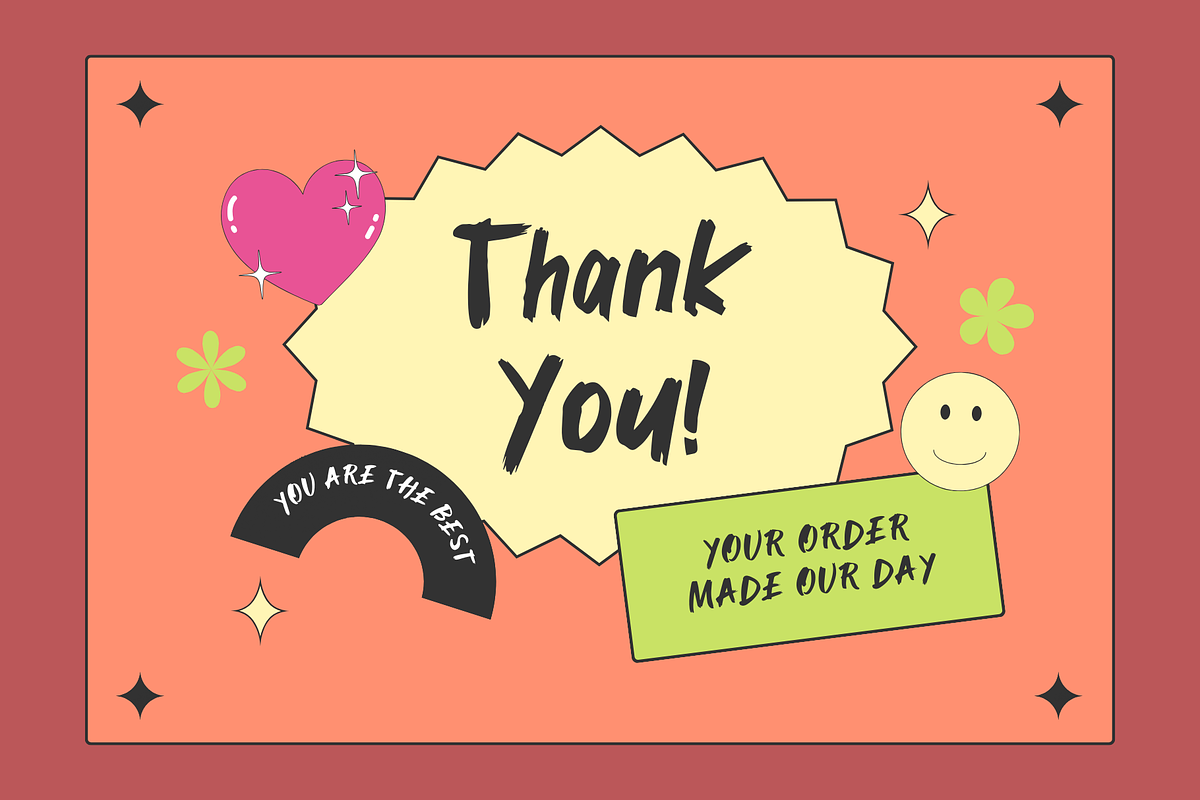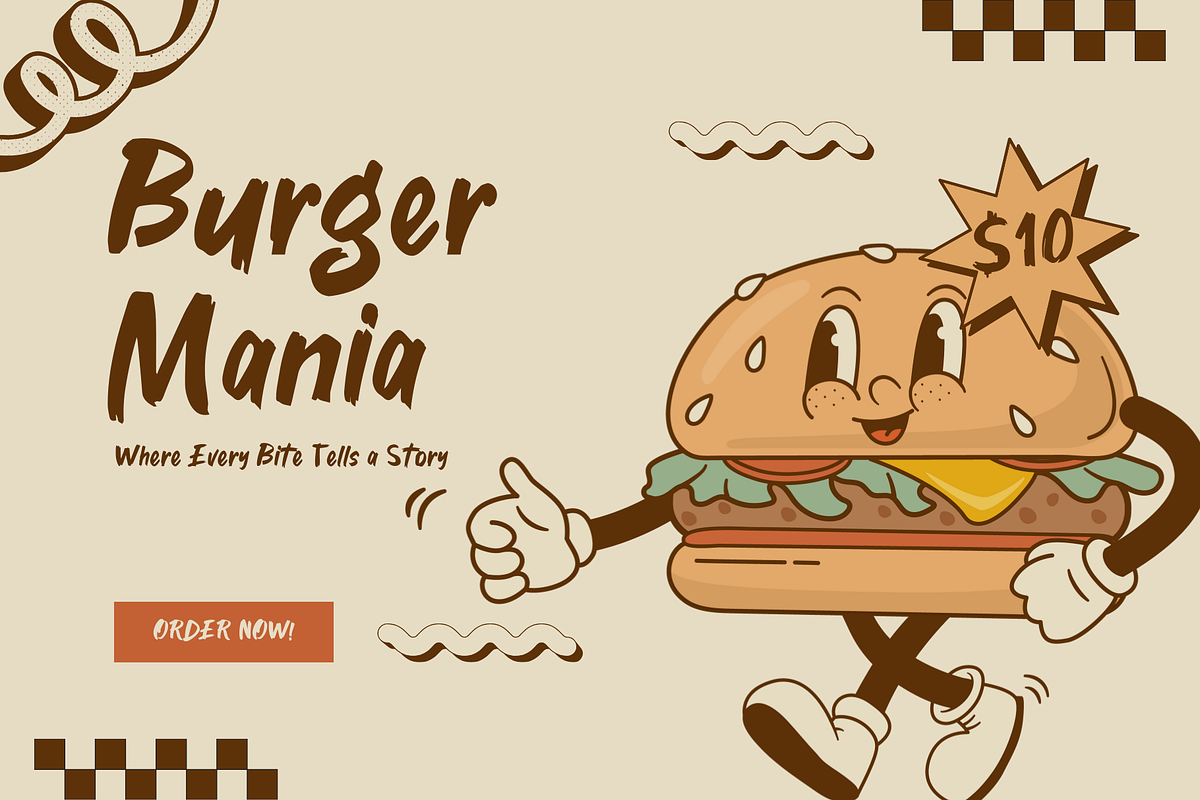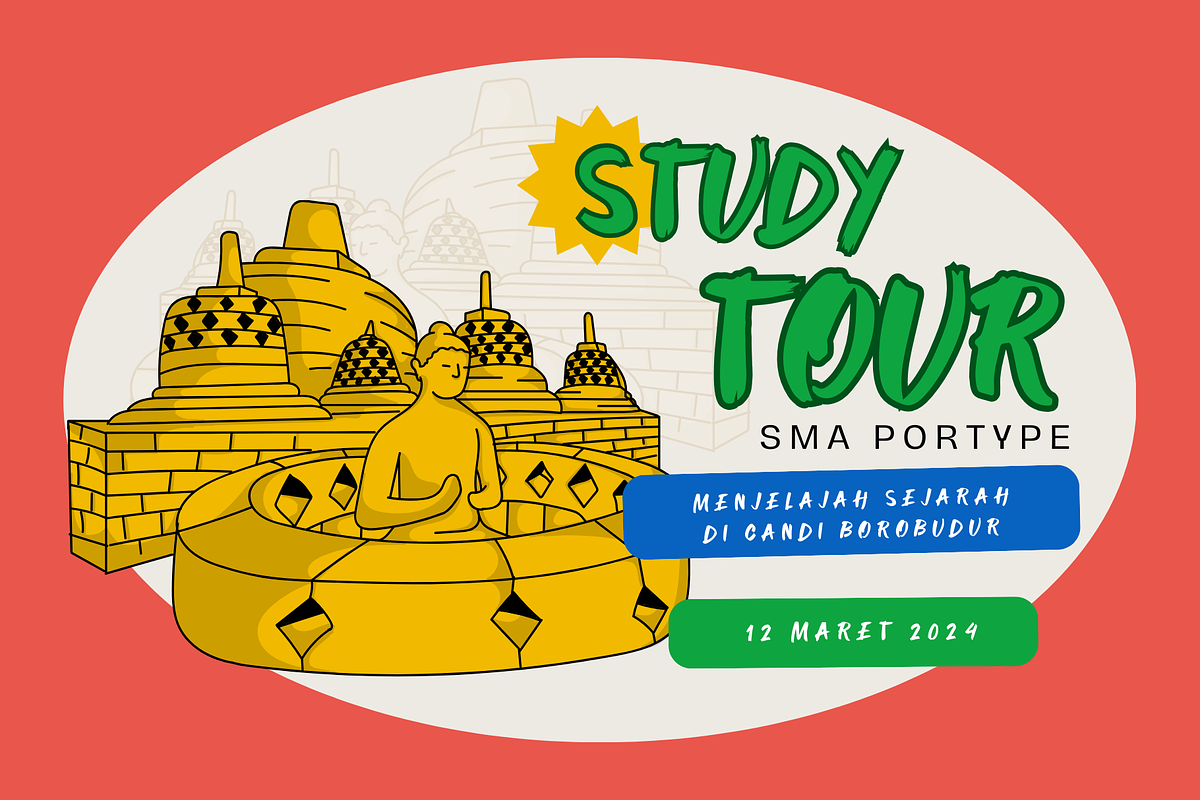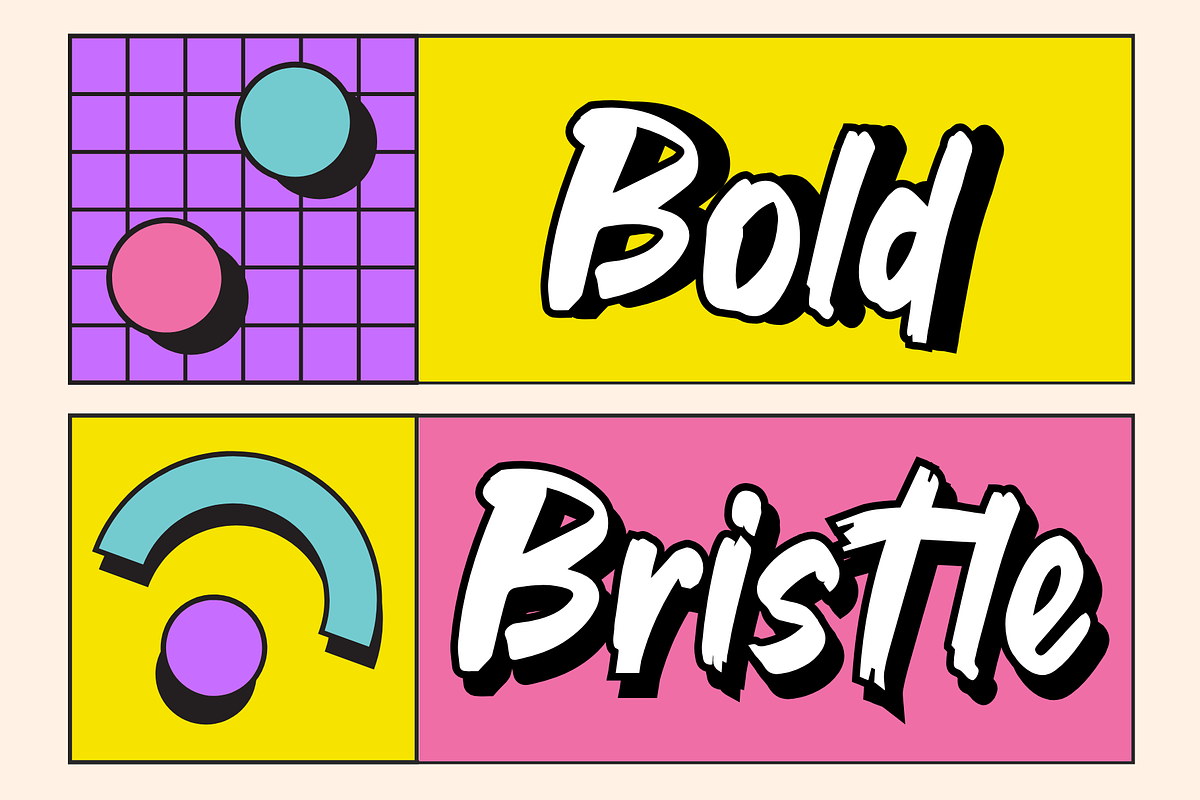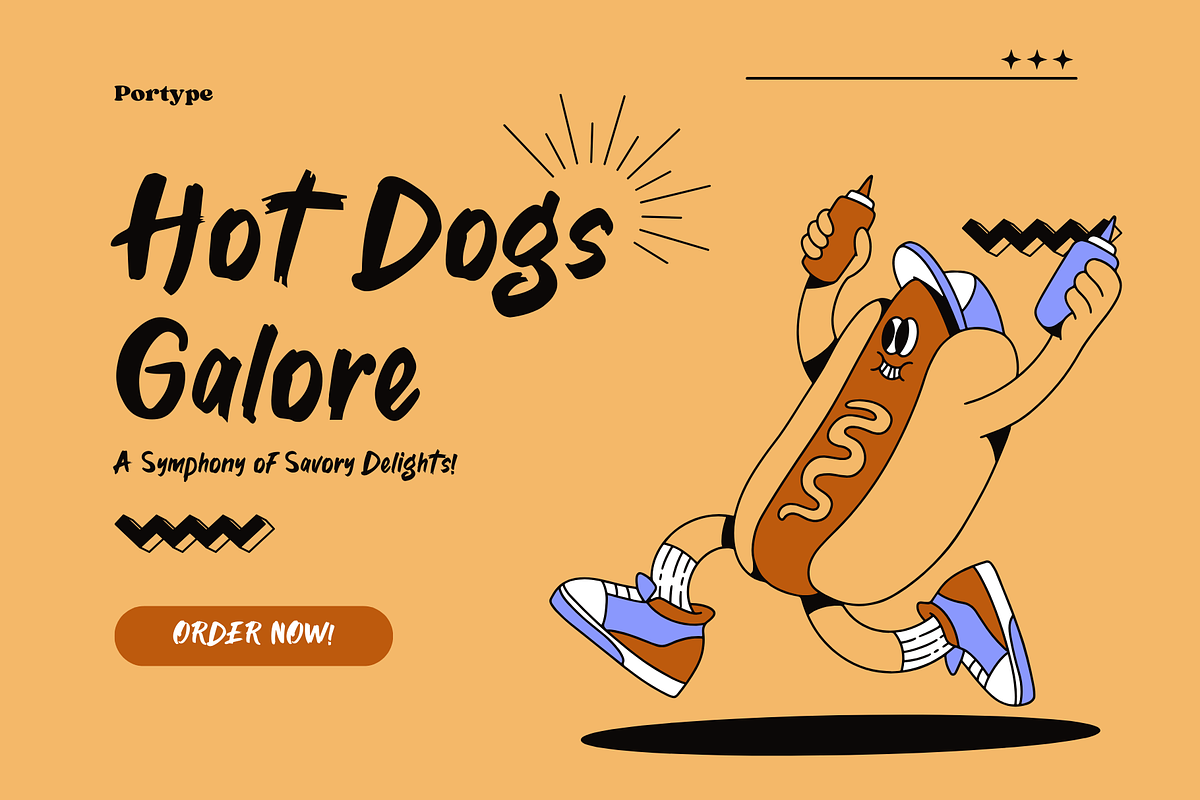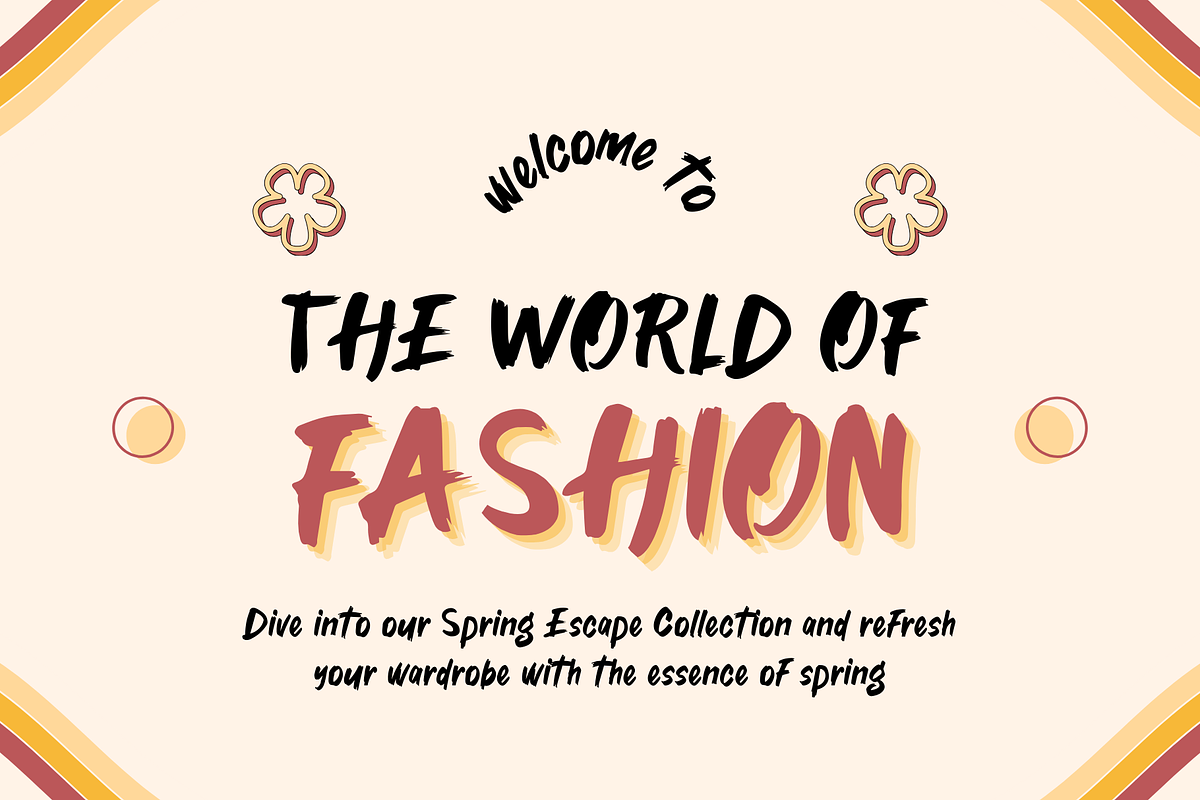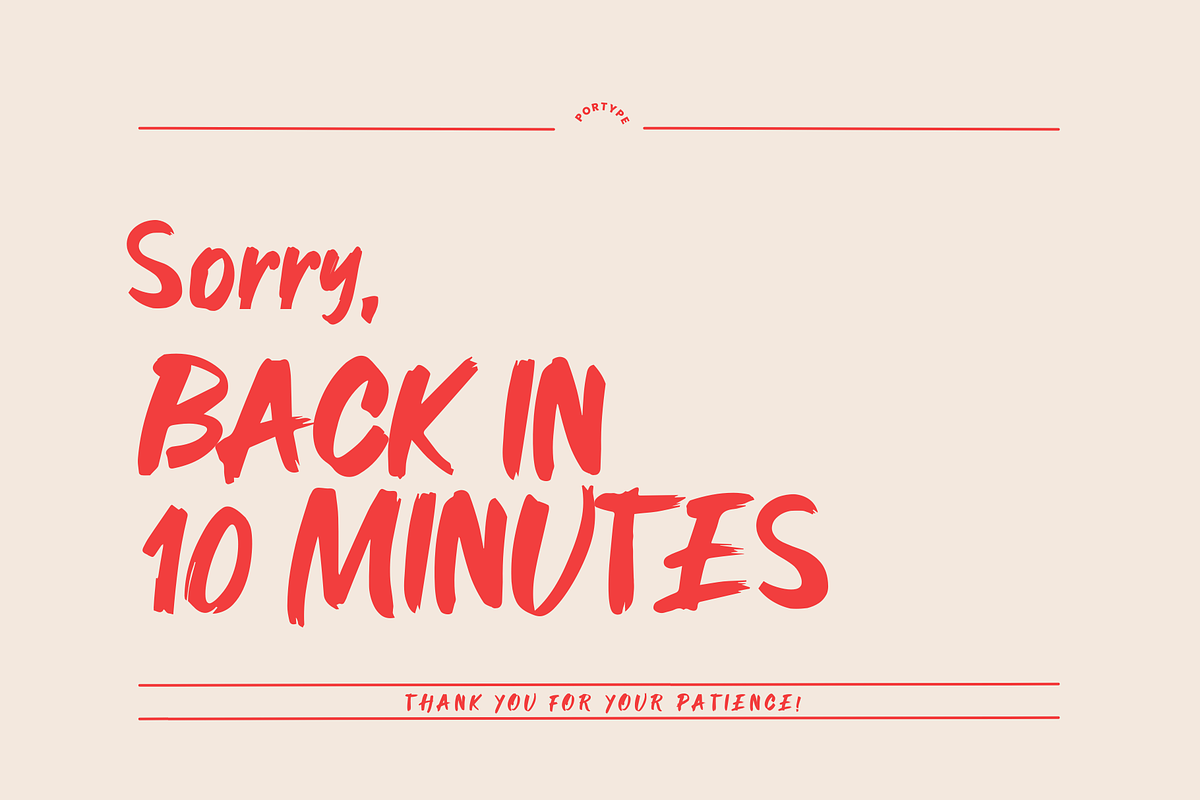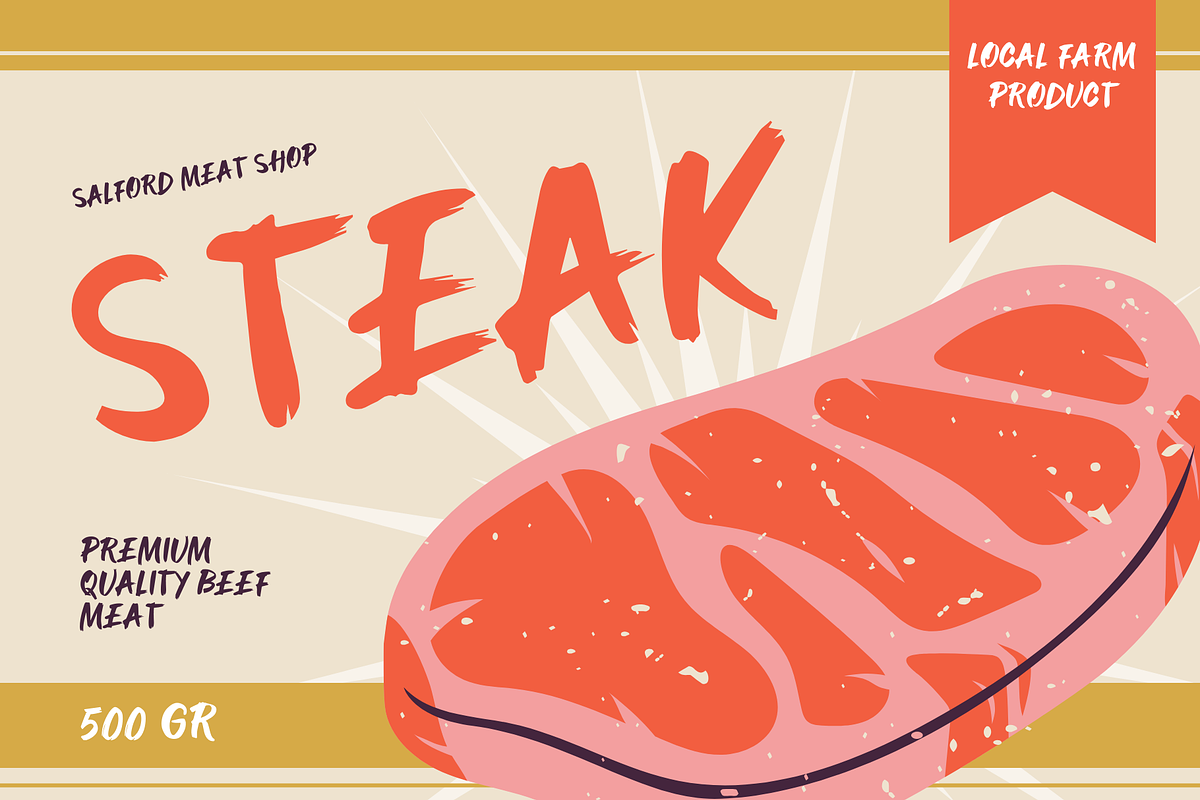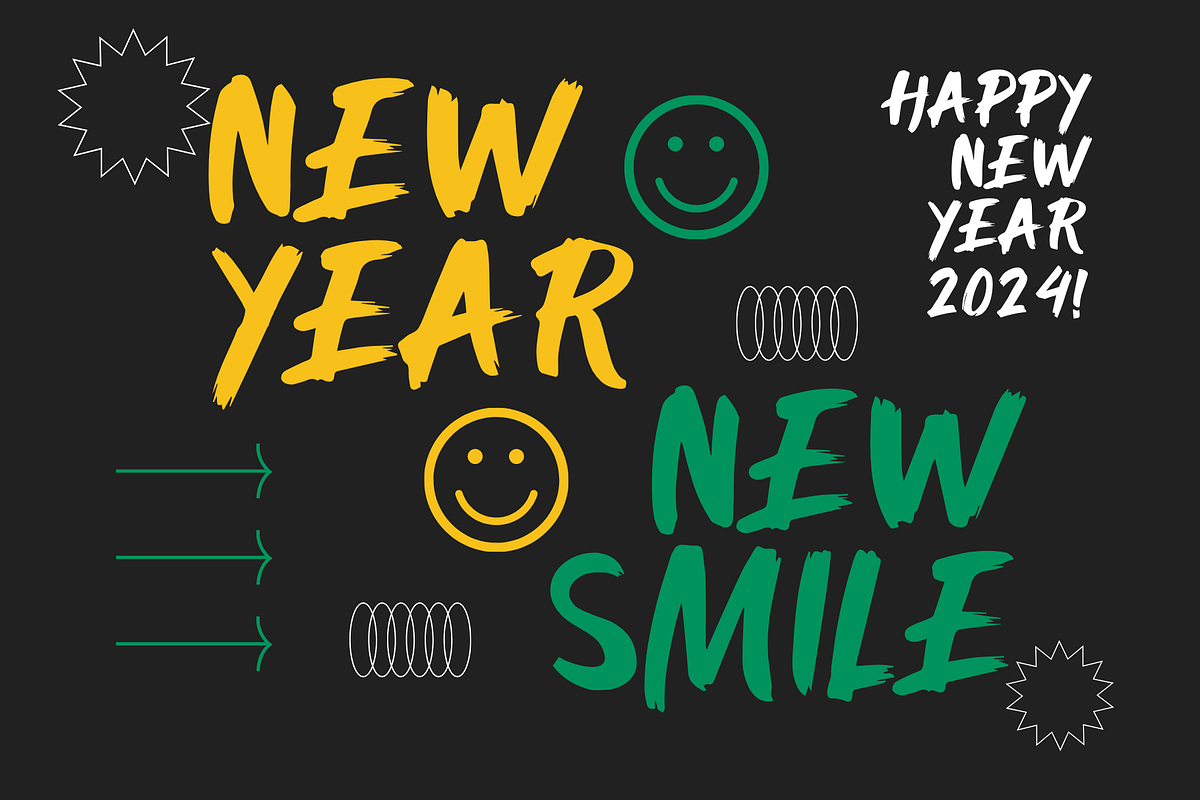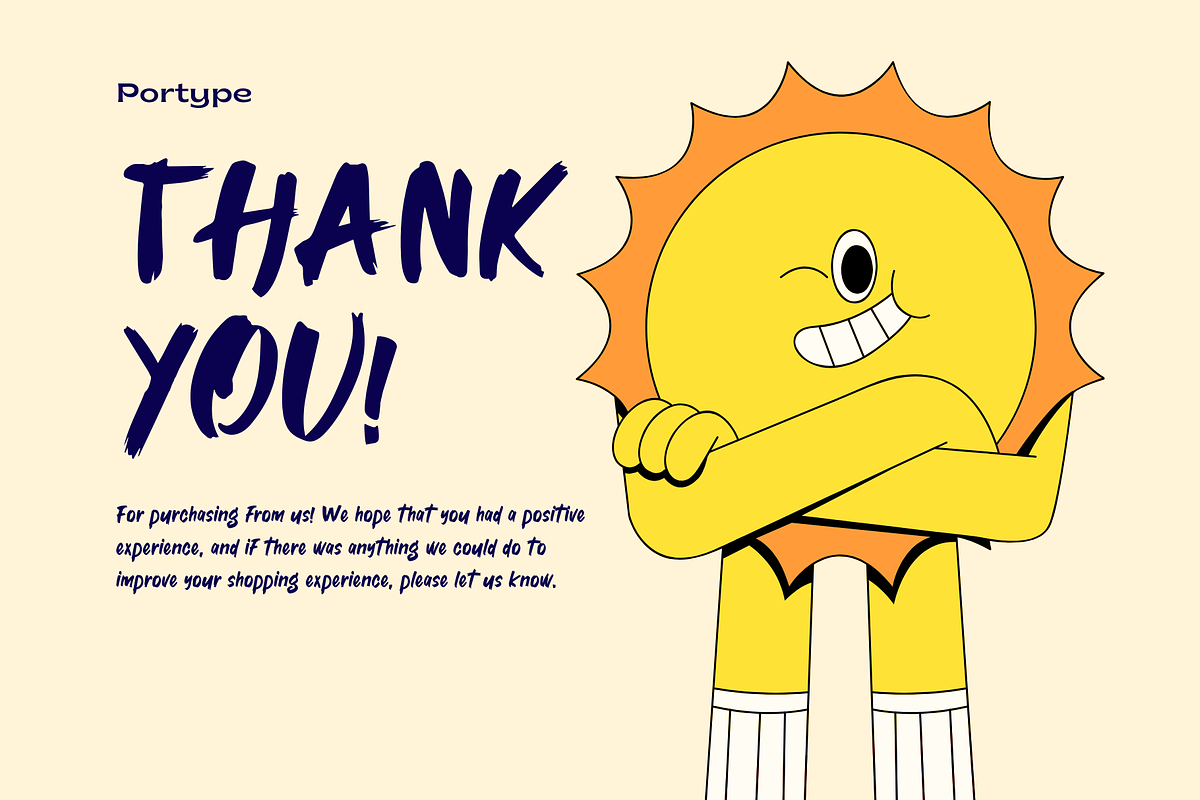
Bold Bristle
Bold Bristle is a brush-style typeface designed to bring a bold and dynamic feel to any text. With its striking strokes and distinctive texture, Bold Bristle delivers a strong, expressive artistic touch, perfect for headlines, posters, and creative designs. Each character boasts unique flair, enhancing the visual appeal and making your message stand out with personality. Ideal for projects that require an authentic, energetic handmade touch.